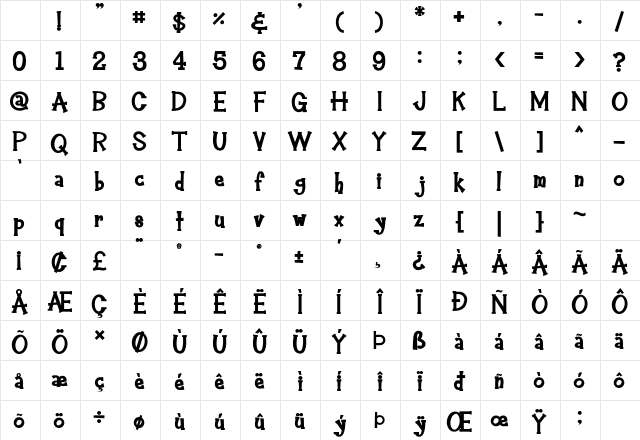
Complete Hey Alfred Bold glyph index. Displaying only characters natively supported by Hey Alfred Bold font.
Hey Alfred is a composed and adaptable typeface that performs quietly and consistently across a wide range of design contexts. Its bold stroke weight gives it real presence on the page.